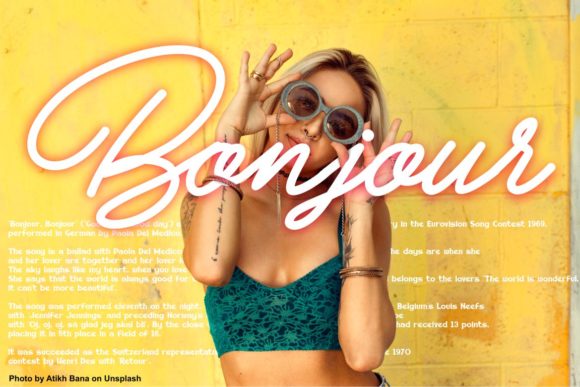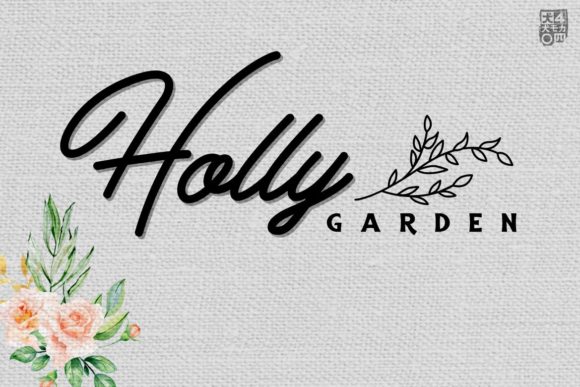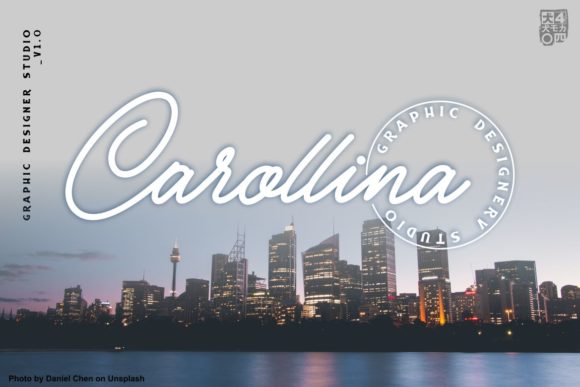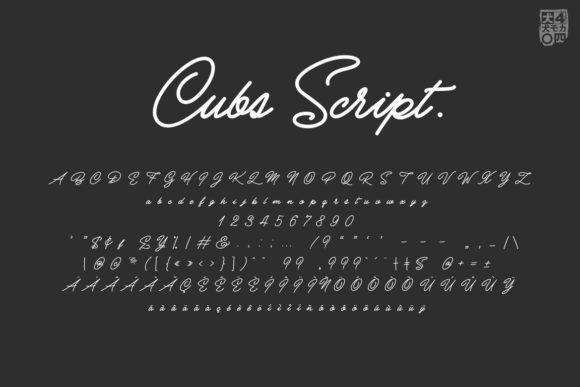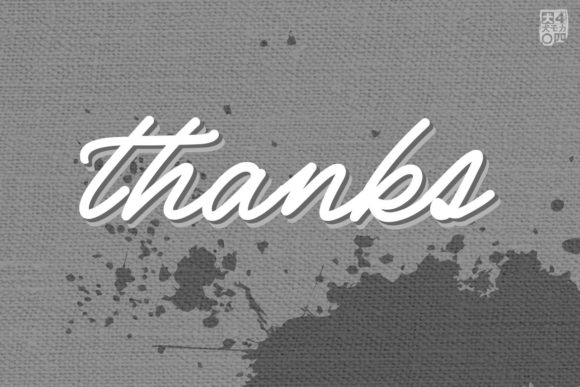
Cubs Script Font: Elevate Your Designs with a Stylish Handwritten Touch
Are you on the hunt for a font that can add a personal touch to your designs? Look no further than the Cubs Script Font! This fantastic handwritten font is incredibly versatile, making it perfect for a wide range of design projects. With its stylish look and feel, you’ll fall in love with the way it can transform your work.
The Versatility of Cubs Script Font
One of the standout features of the Cubs Script Font is its versatility. Whether you’re working on a branding project, creating social media graphics, or designing a website, this font can adapt to any style or theme. Its unique blend of elegance and playfulness makes it an excellent choice for designers and crafters looking to add a personal touch to their work.
From wedding invitations and party decorations to business cards and brochures, the Cubs Script Font can be used in a multitude of design projects. Its stylish look and feel will instantly elevate your designs, making them stand out from the crowd.
The Characteristics of Cubs Script Font
So, what makes the Cubs Script Font so special? Here are a few of its key characteristics:
- Handwritten style: The Cubs Script Font has a beautiful, handwritten style that adds a personal touch to any design.
- Unique lettering: Each letter has its own unique charm, making the font feel more like a personal signature than a standard font.
- Elegant and playful: The font strikes the perfect balance between elegance and playfulness, making it suitable for a wide range of design projects.
- Easy to read: Despite its unique style, the Cubs Script Font is easy to read, making it perfect for body text and headings.
How to Use Cubs Script Font in Your Designs
Using the Cubs Script Font in your designs is easy! Here are a few tips to get you started:
- Pair it with a sans-serif font: Pairing the Cubs Script Font with a sans-serif font creates a beautiful contrast that will make your designs stand out.
- Use it for headings and titles: The Cubs Script Font is perfect for headings and titles, where its unique style can really shine.
- Add a personal touch: Use the Cubs Script Font to add a personal touch to your designs, making them feel more approachable and friendly.
Why Designers and Crafters Love Cubs Script Font
Designers and crafters love the Cubs Script Font for many reasons. Here are a few:
- Its unique style: The Cubs Script Font has a unique style that sets it apart from other fonts.
- Its versatility: The font can be used in a wide range of design projects, making it a valuable addition to any designer’s toolkit.
- Its ease of use: The Cubs Script Font is easy to use and can be easily integrated into any design project.
In conclusion, the Cubs Script Font is a fantastic handwritten font that can add a personal touch to any design project. Its unique style, versatility, and ease of use make it a valuable addition to any designer’s toolkit. Whether you’re a seasoned designer or a crafter looking to add a personal touch to your work, the Cubs Script Font is sure to impress.